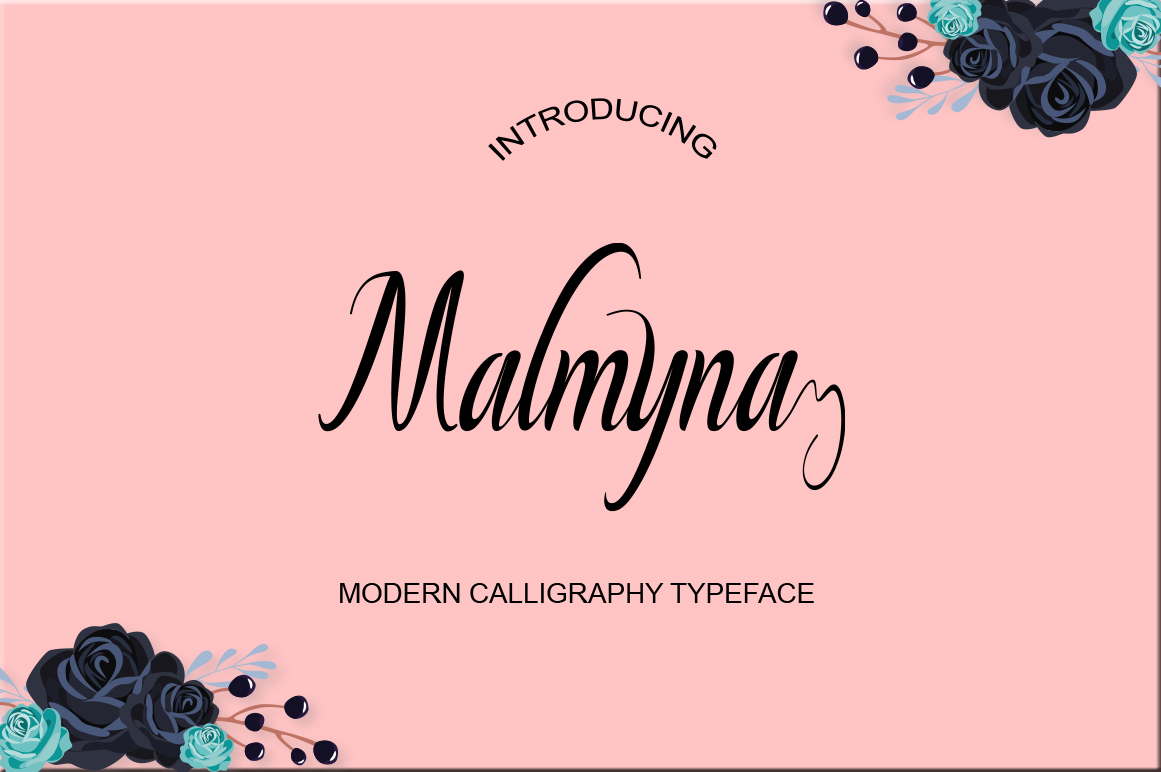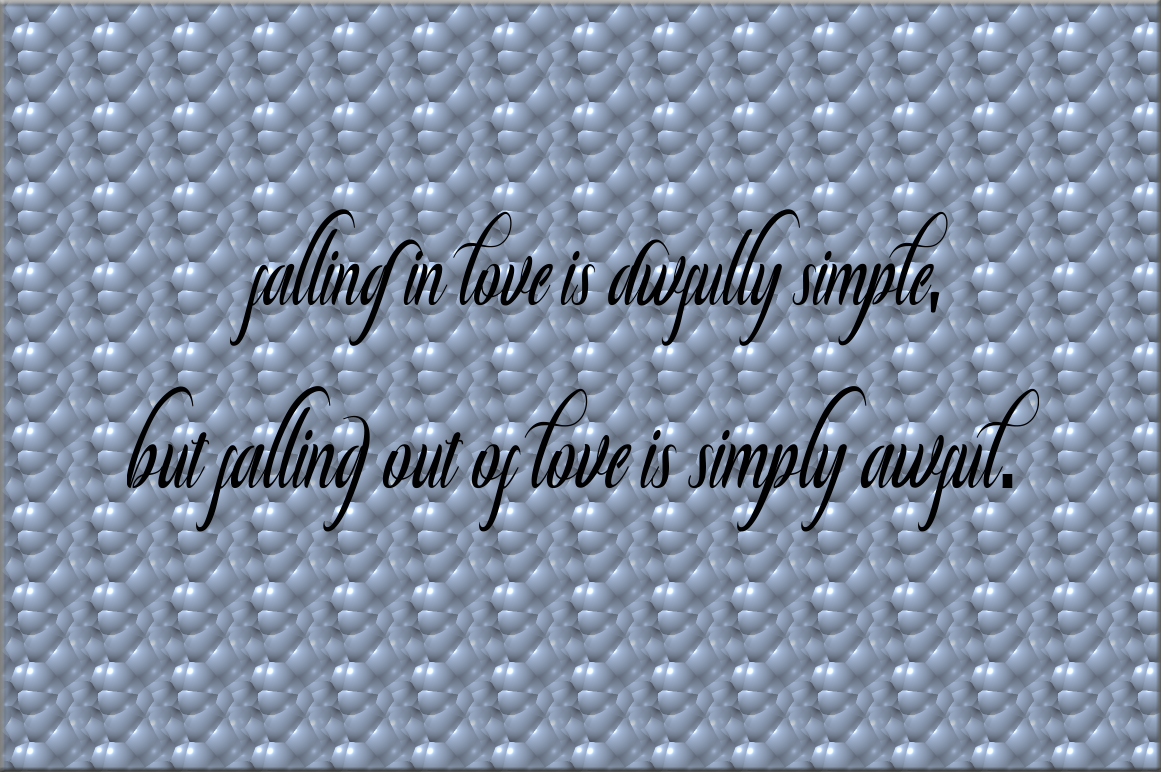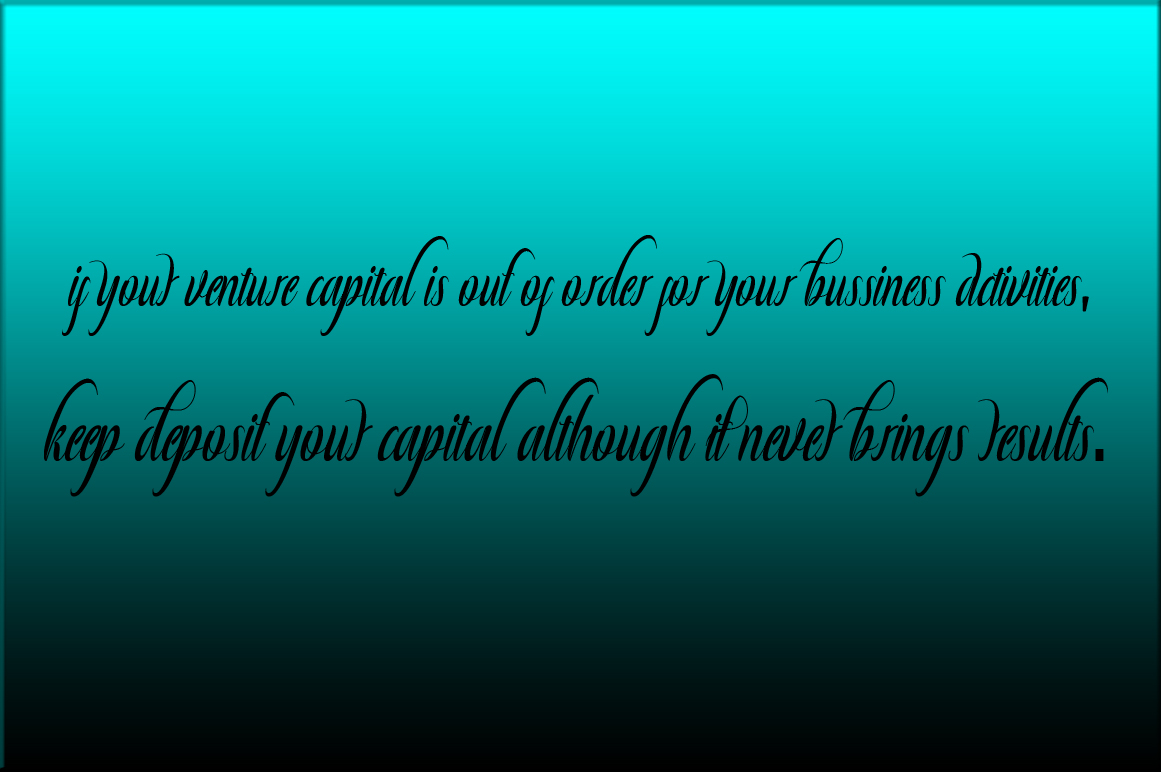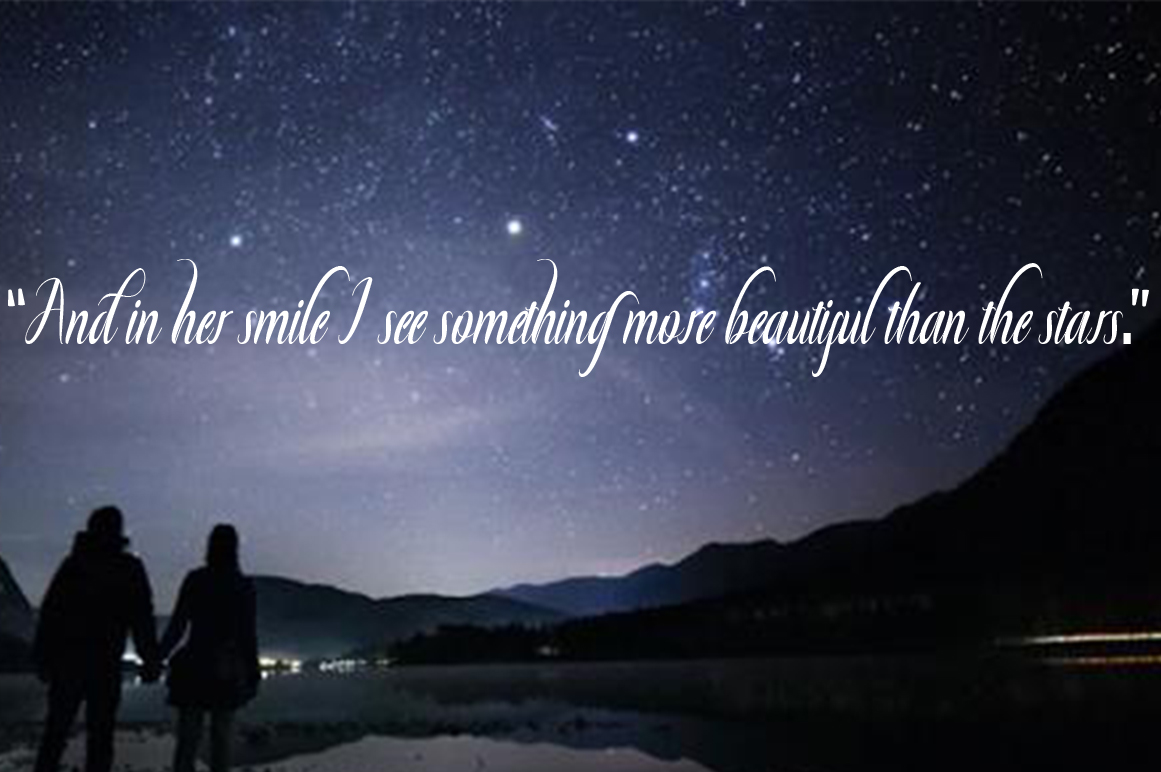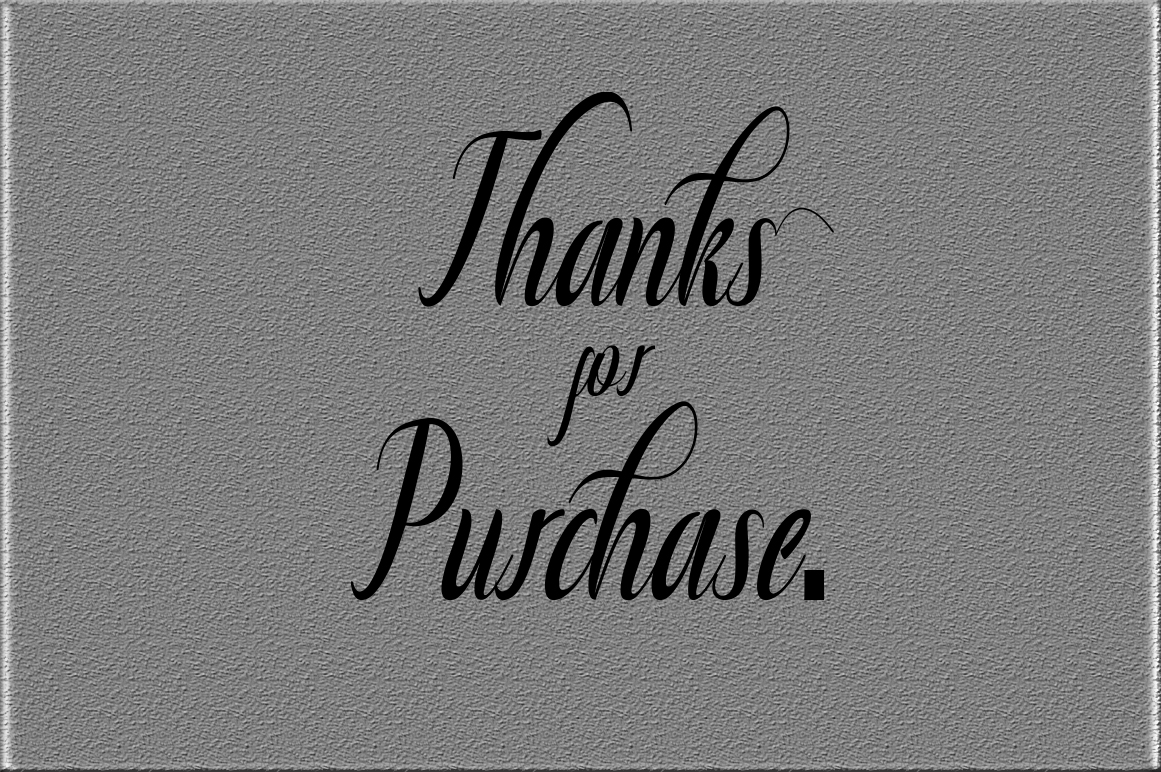
Malmyna Script Font
About Malmyna Script Font
Malmyna is a natural, modern script. It is a font that flows well, and has a timeless appeal. It is useable in both traditional and modern designs.
If you are looking for a script suited to a large number of decorative possibilities, Malmyna is a congenial font option.